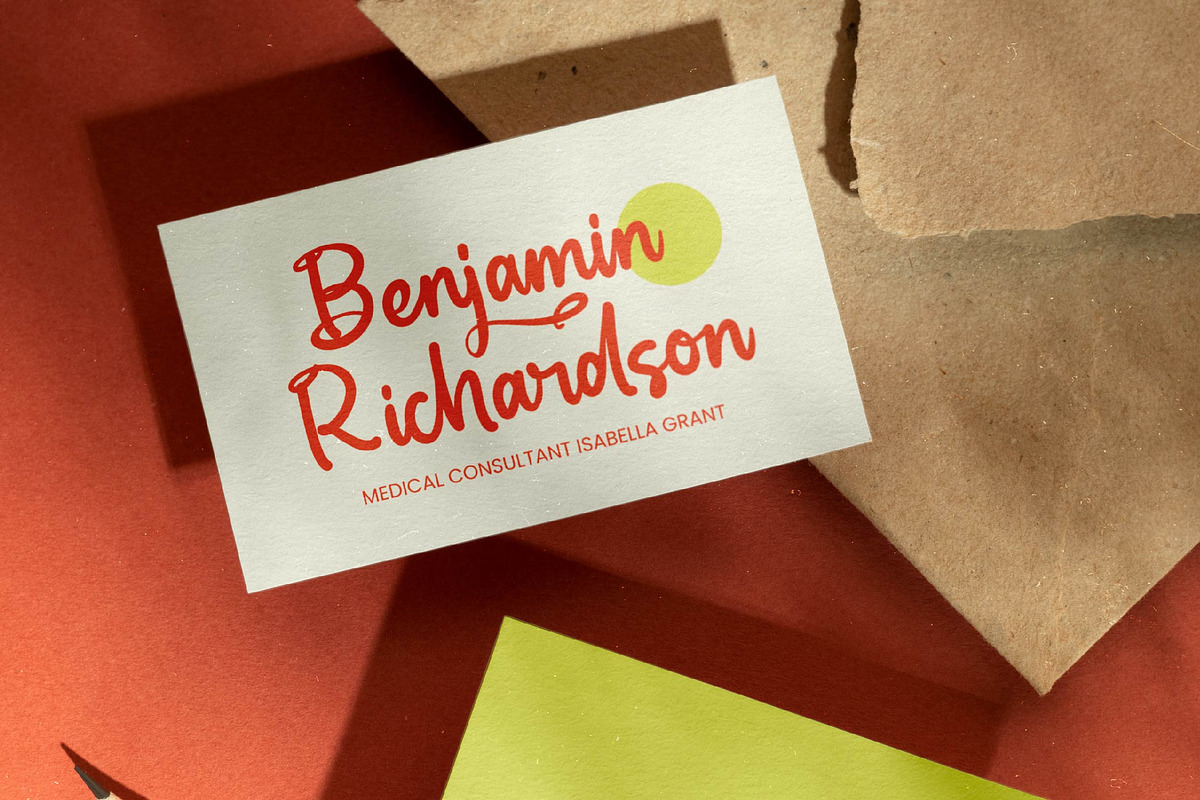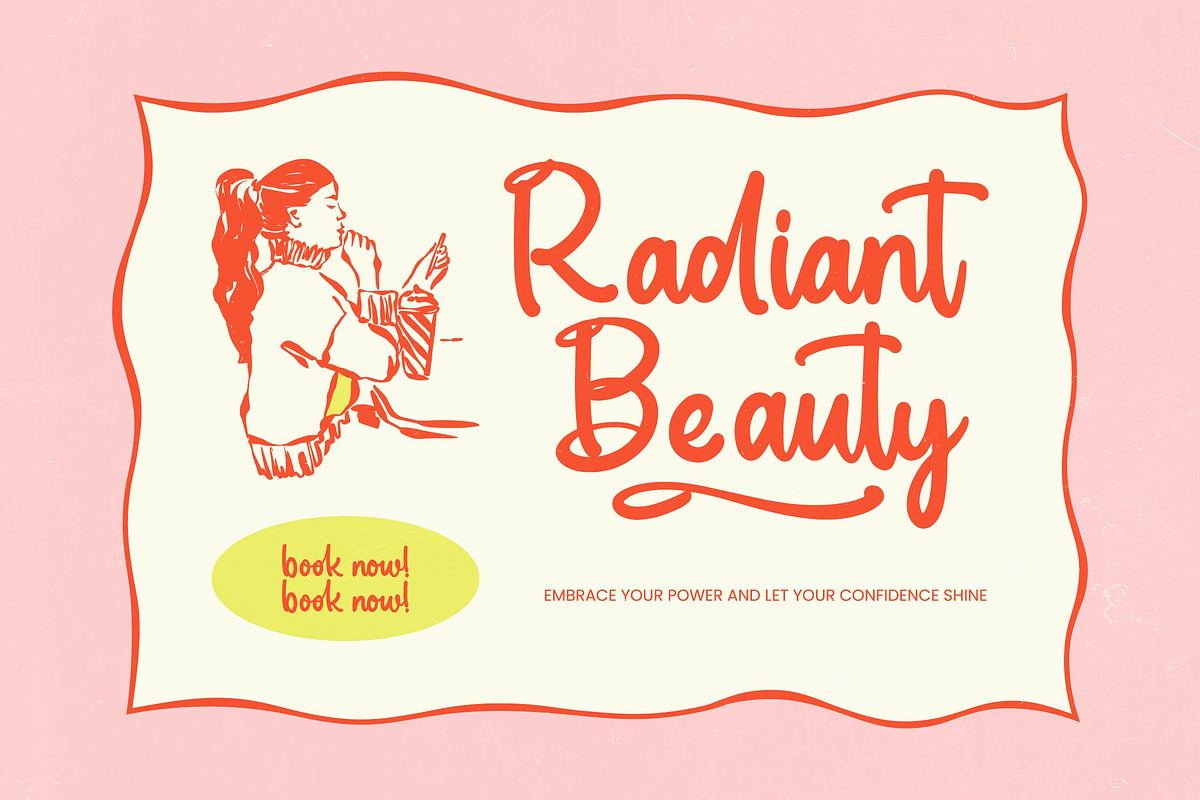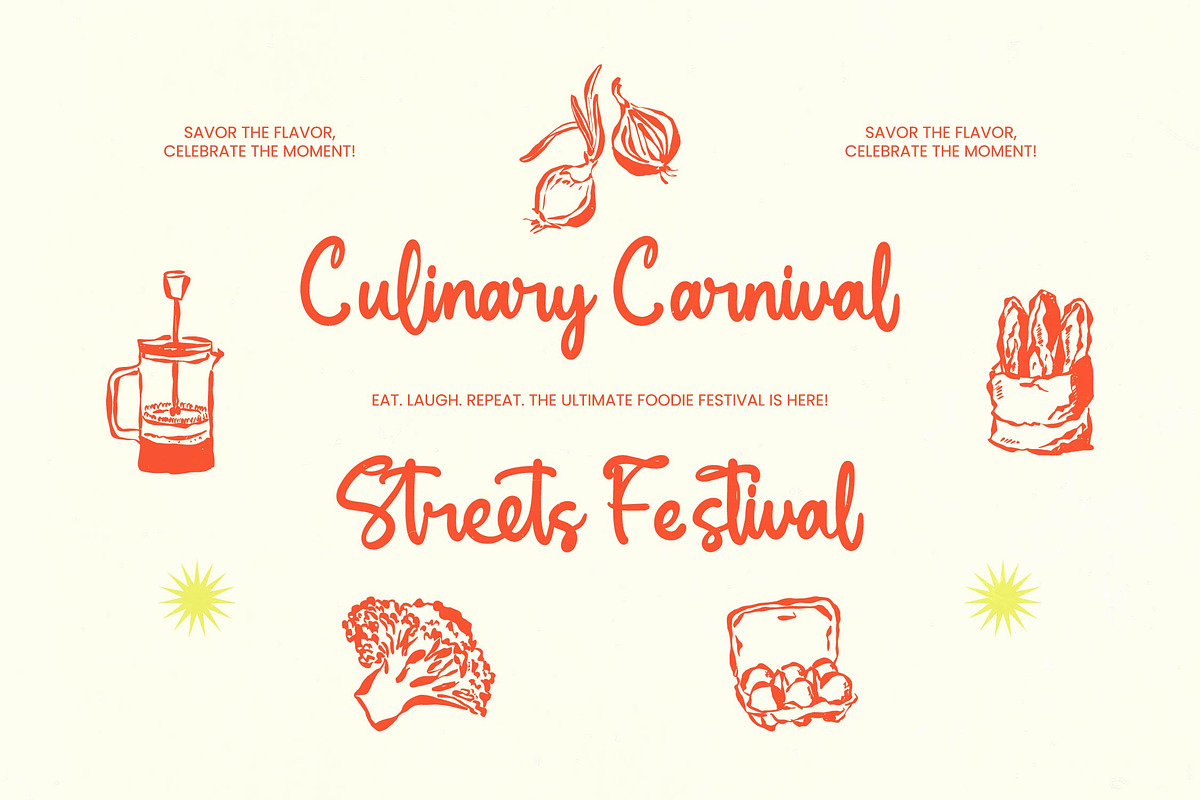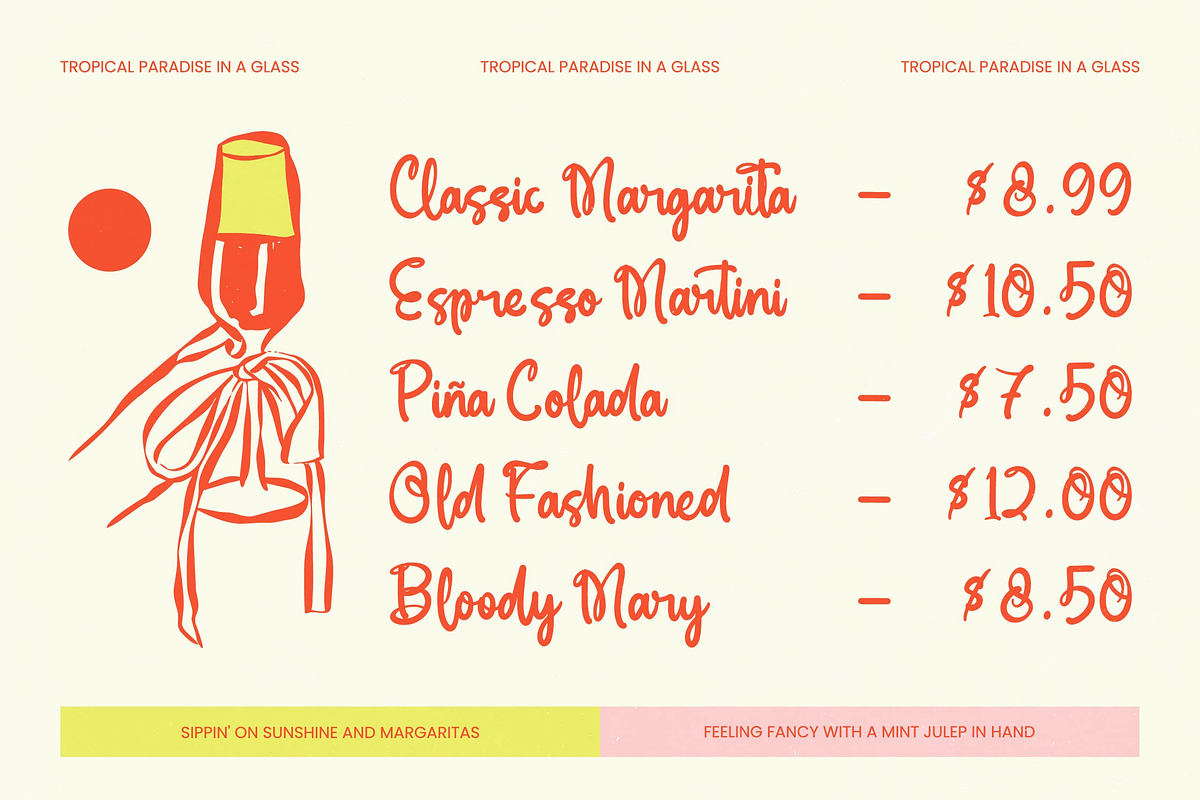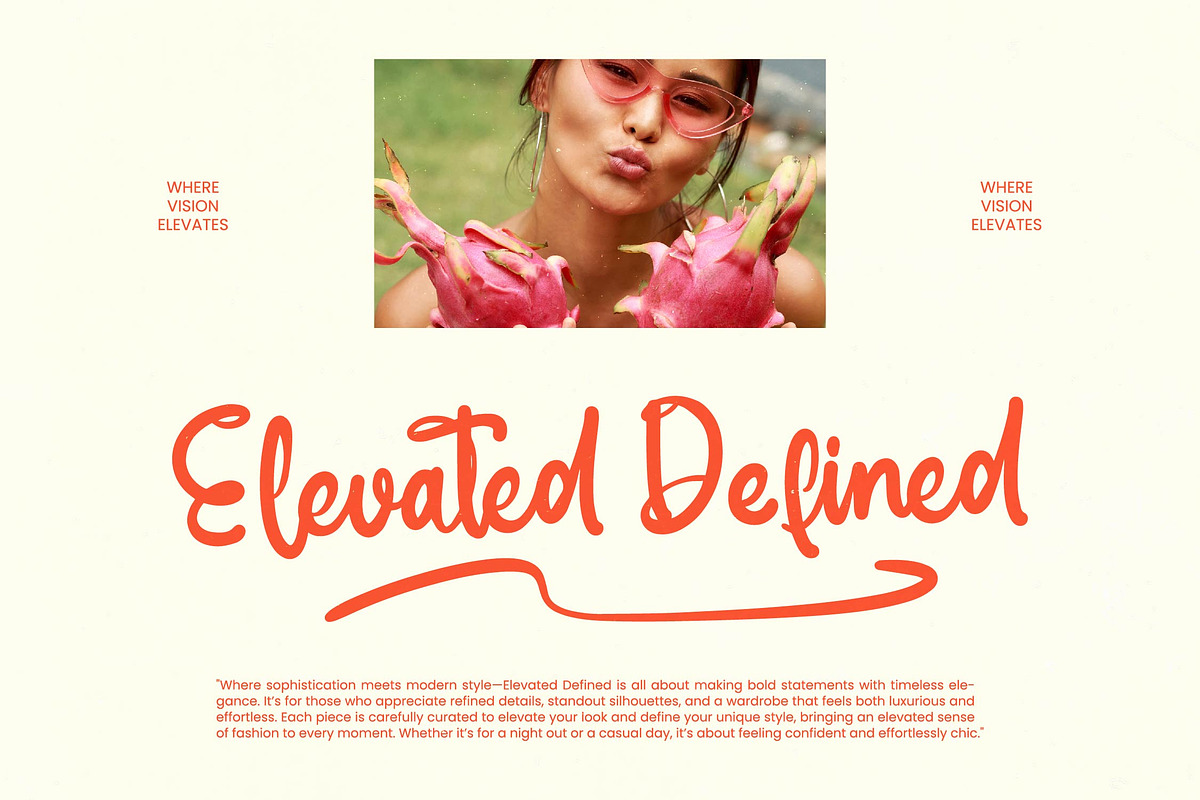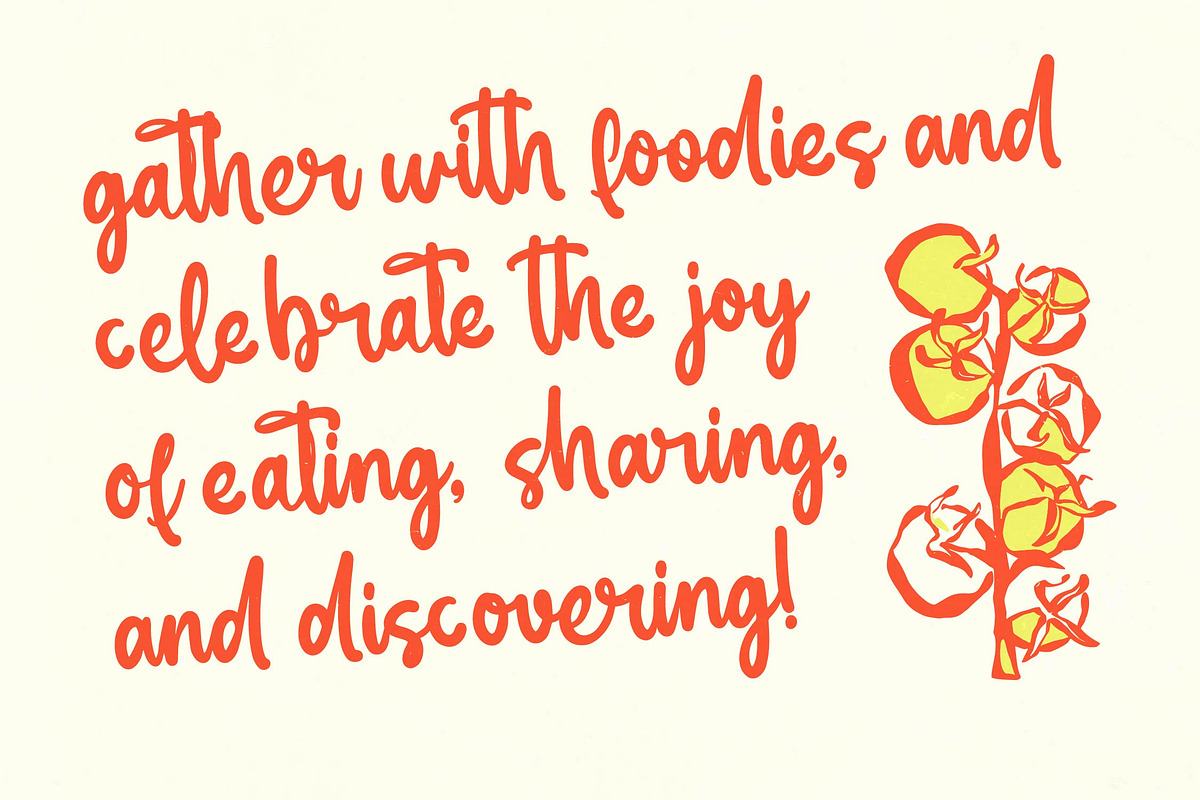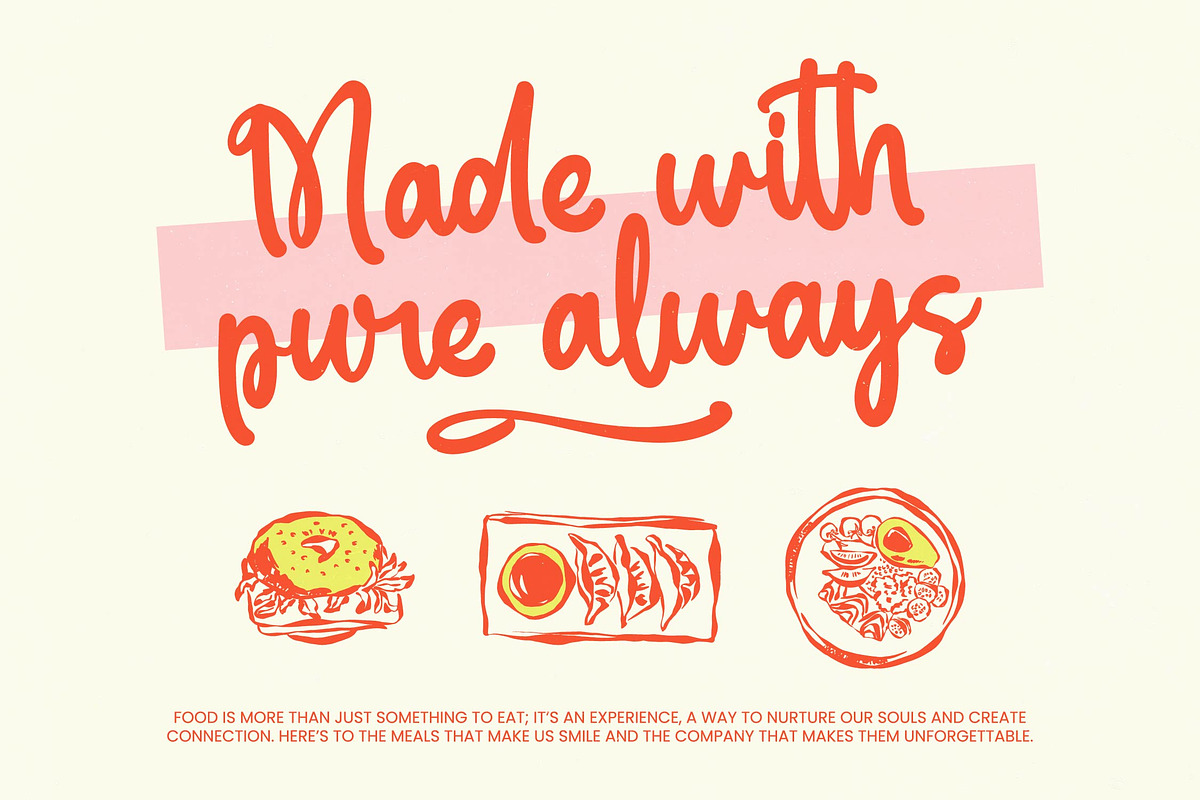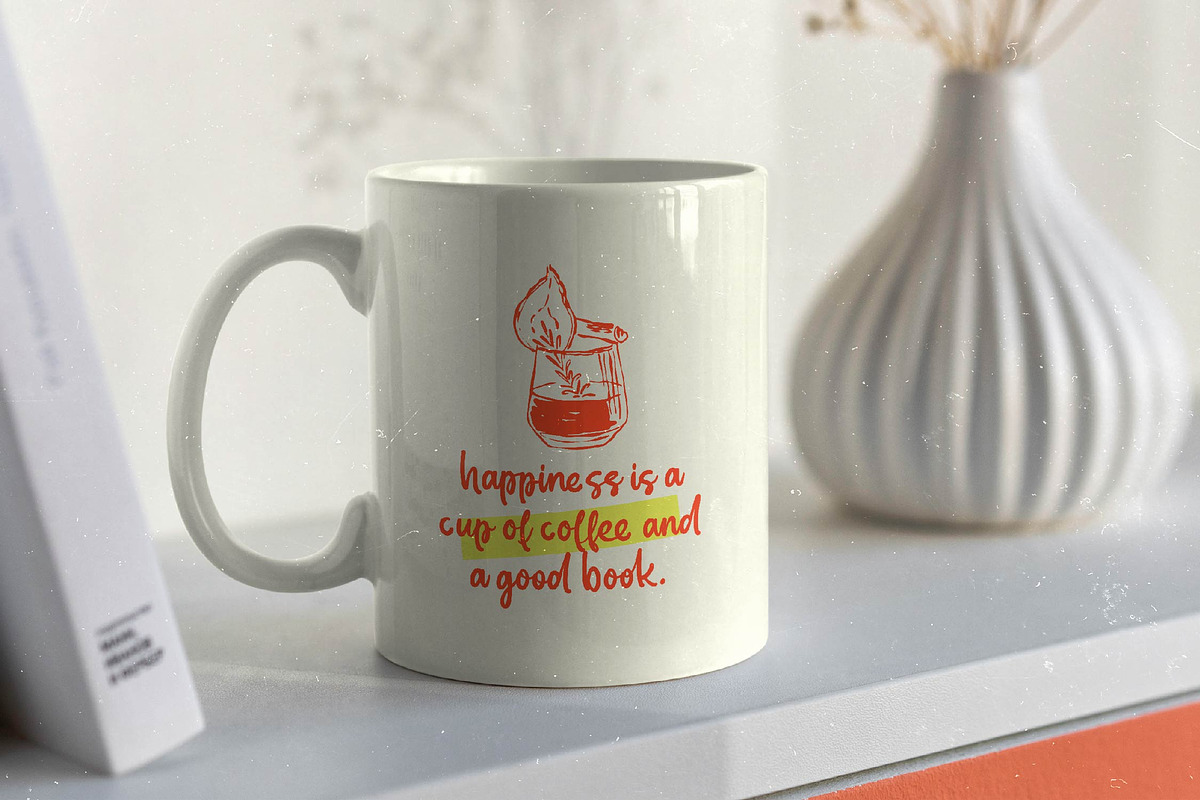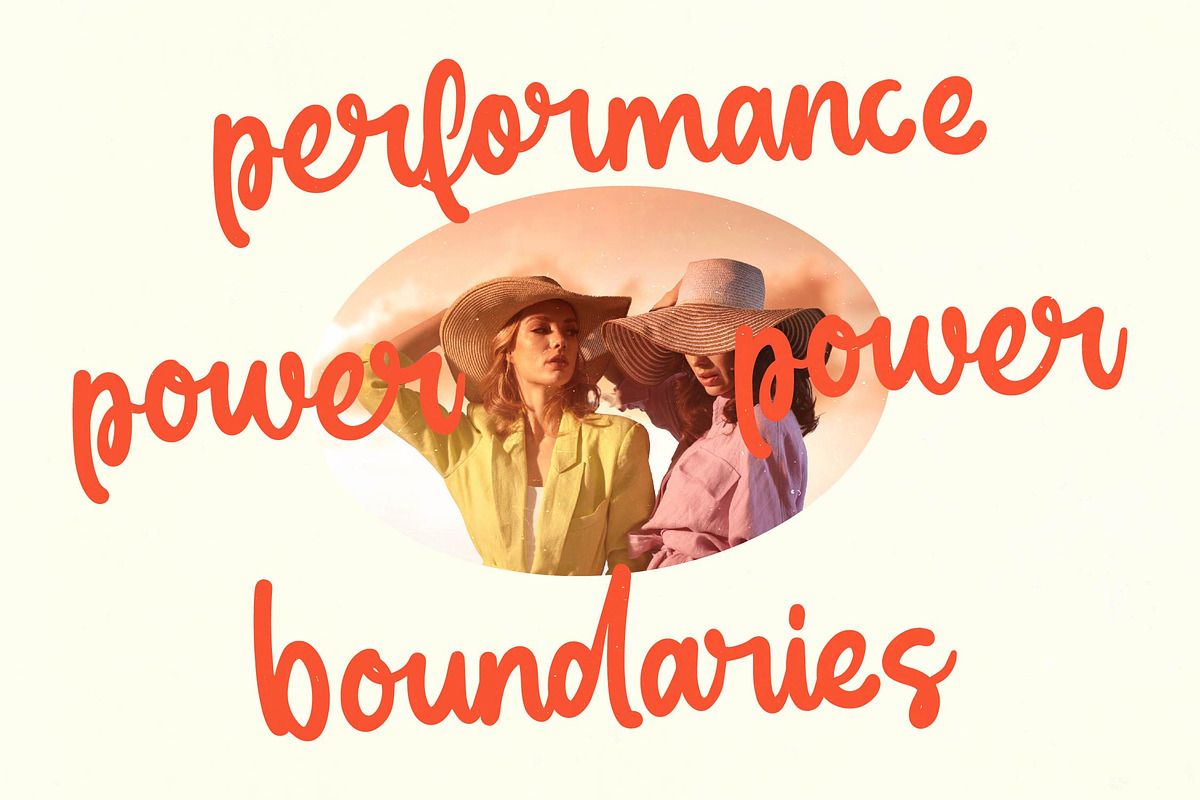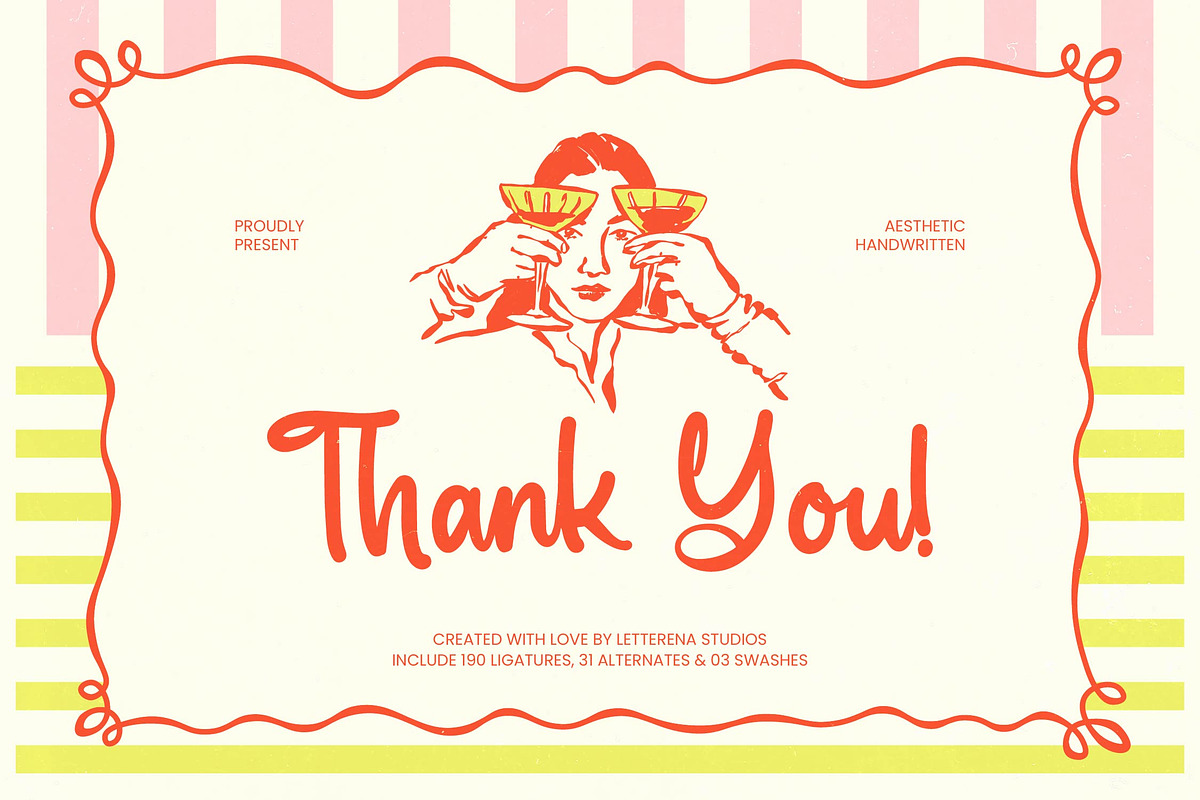
Chiler Spark Aesthetic Handwritten
Chiler Spark - Aesthetic Handwritten , Experience the effortless charm of Chiler Spark, a soulful handwritten script designed to bring a touch of human warmth and artistic flair to your digital canvas. This typeface captures the essence of spontaneous creativity, blending fluid movement with a polished, modern aesthetic that resonates with contemporary audiences.
Inspired by the relaxed atmosphere of a sun-drenched cocktail hour and the intimate art of personal journaling, the font evokes feelings of casual elegance. It draws from the natural flow of ink on paper, creating a rhythmic visual experience that feels both nostalgic and refreshingly chic for modern design applications.
This typeface is engineered for maximum branding impact and serves as a sophisticated editorial font, offering a high-energy alternative to the standard modern serif display. Its organic strokes provide a luxury typography feel that balances playful curves with a high-contrast serif logic in its weight distribution and flow.
By embracing the current modern serif trend, this typeface positions itself at the forefront of character-driven typography for the fashion and lifestyle sectors. It is an essential resource for creators seeking editorial display fonts that break away from geometric rigidity to celebrate authentic, hand-crafted beauty.
Chiler Spark is the ultimate choice for bespoke logo design and cohesive branding systems, performing exceptionally well in high-end editorial layouts and vibrant packaging. Whether you are designing for a romantic wedding or a trend-setting fashion house, its versatile nature ensures your message is delivered with unmatched style.
This professional toolkit is enriched with extensive ligatures, alternates, and decorative swashes to allow for truly unique typographic compositions. Comprehensive multilingual support and a wide array of international characters make it a versatile asset for global design projects across all media.